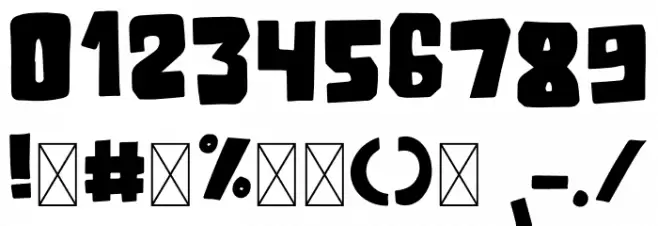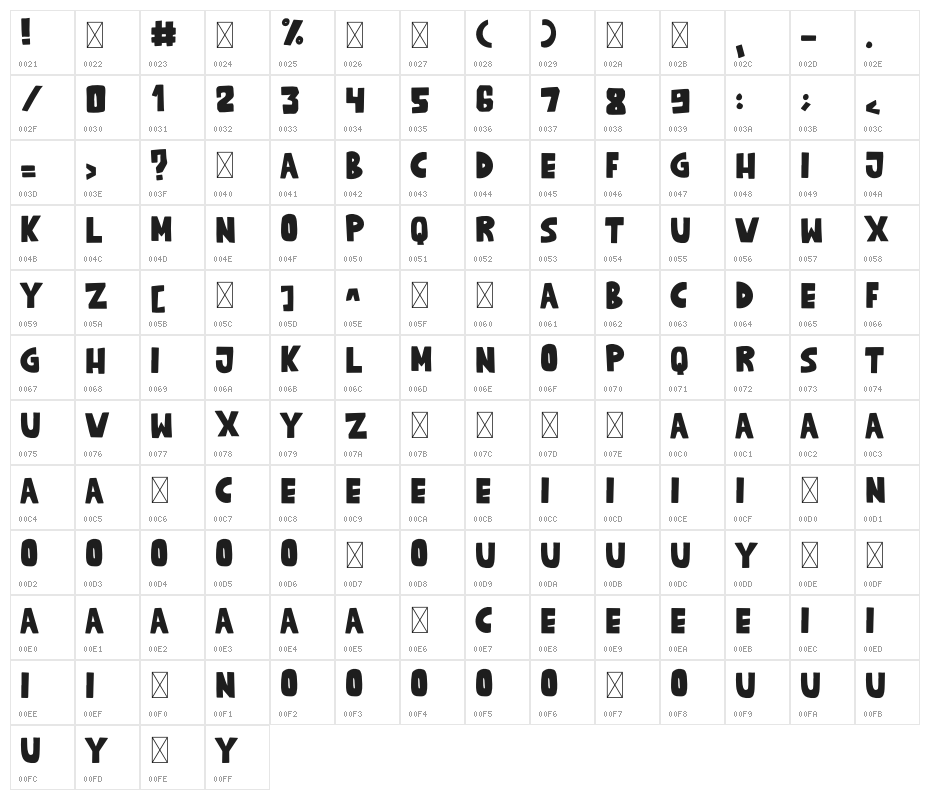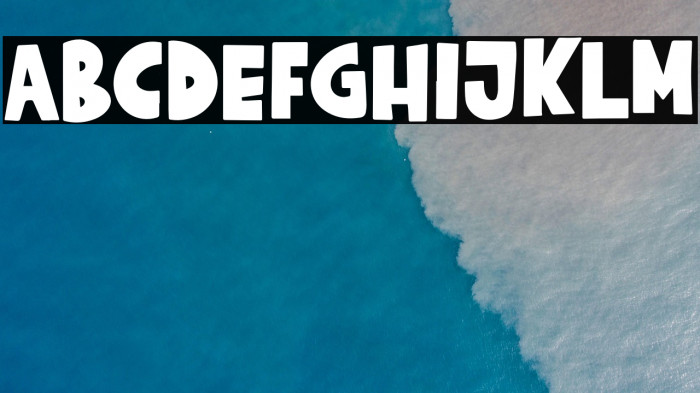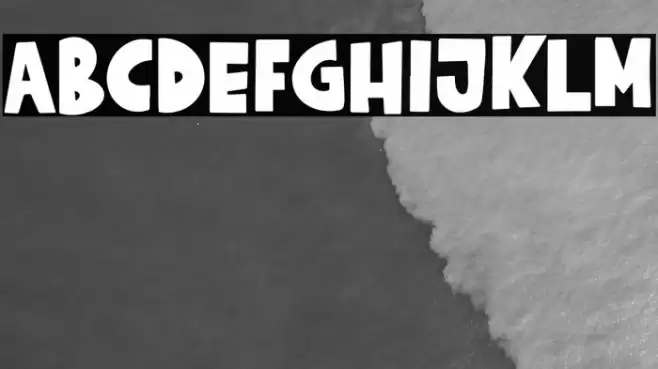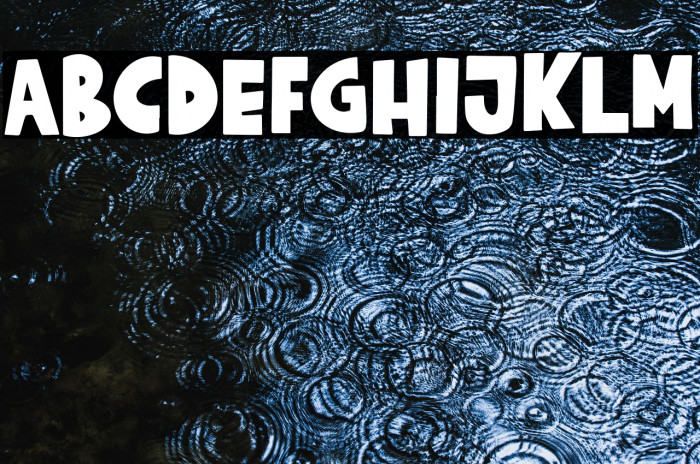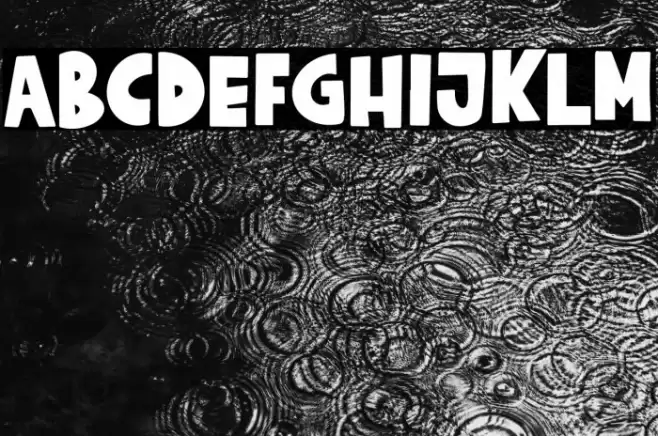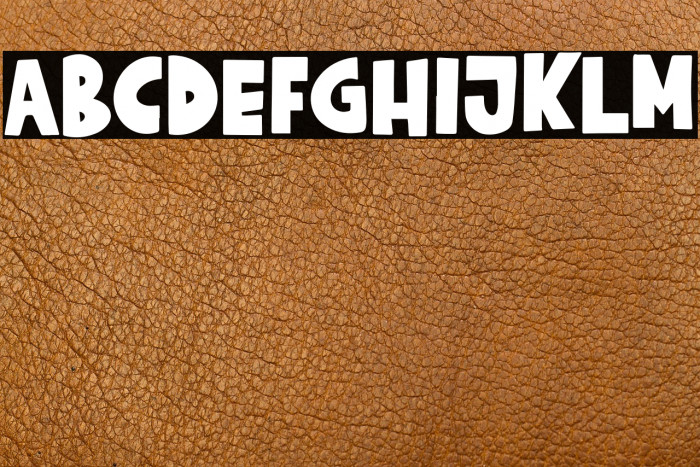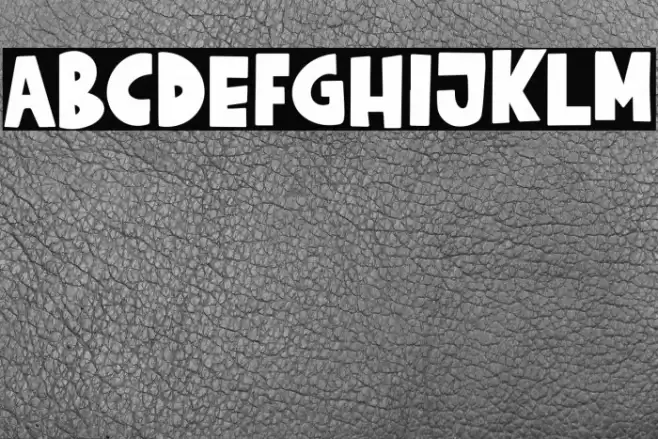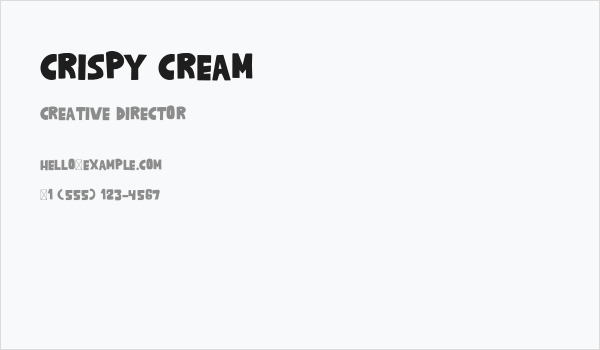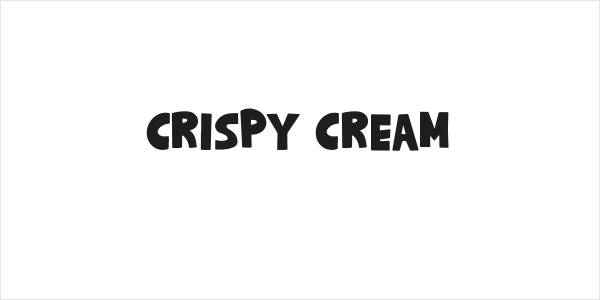
Crispy Cream Font
Crispy Cream Description
This font features bold, chunky letters with a playful and informal style. The characters are uniformly thick, giving them a strong presence on the page. The rounded edges and slightly irregular shapes add a whimsical touch, making it ideal for projects that require a fun and approachable aesthetic. The numbers and special characters maintain the same boldness, ensuring consistency across different uses. The overall design is eye-catching and suitable for creative and casual applications.
| Proposed Projects | Ideal for children's books, posters, playful branding, and creative advertisements. |